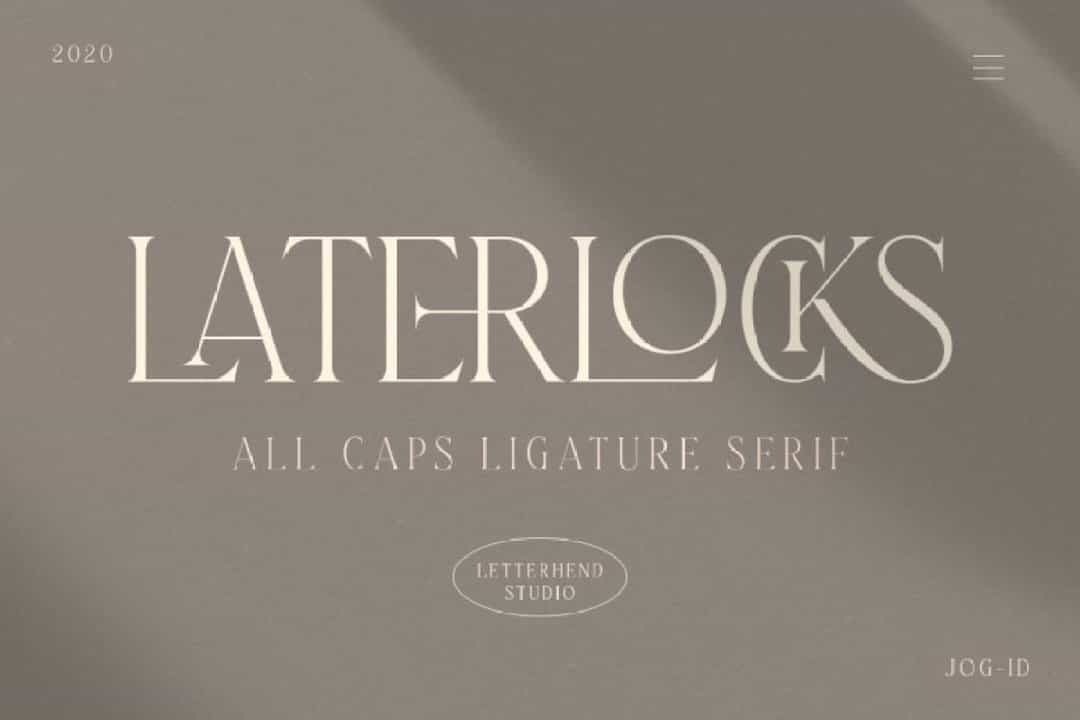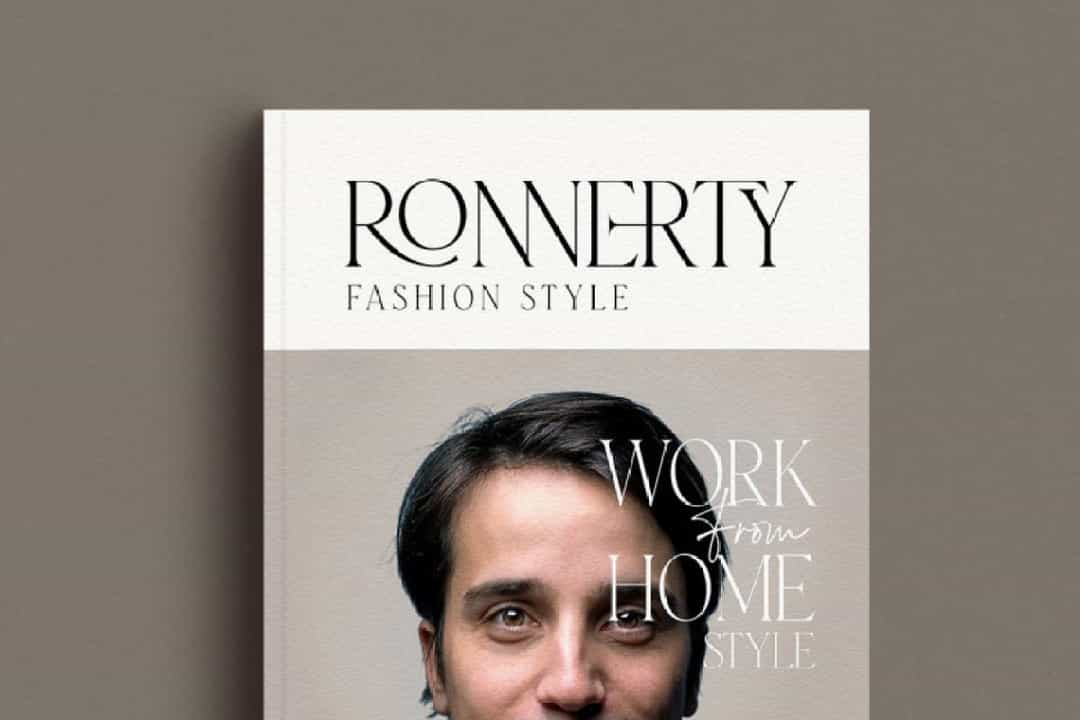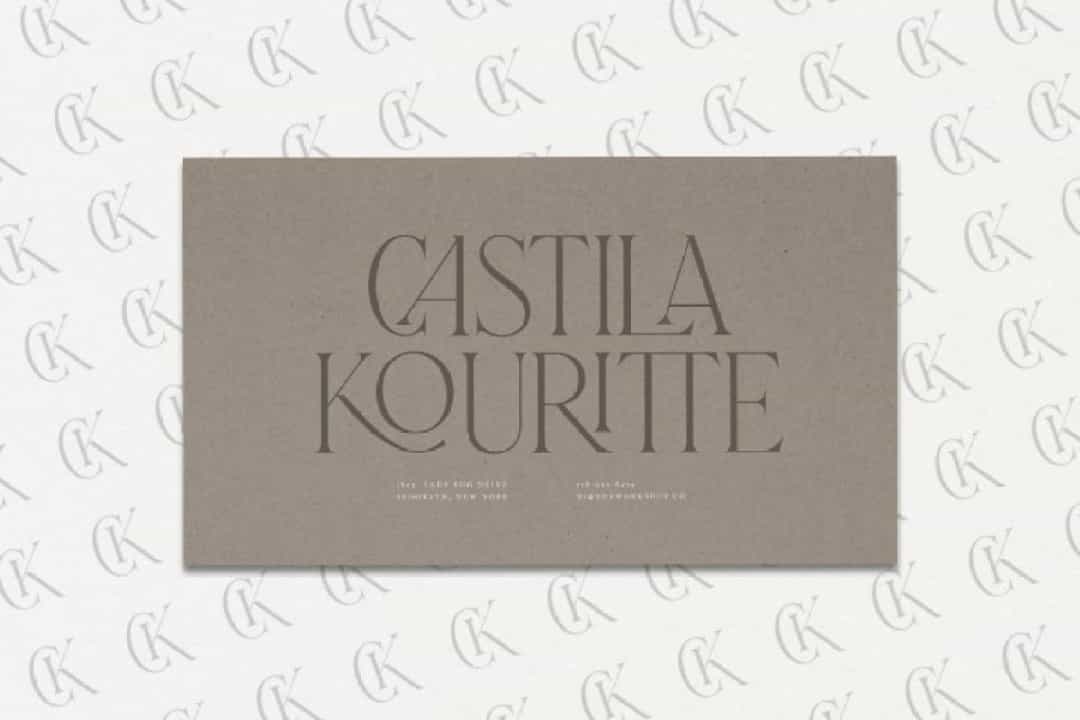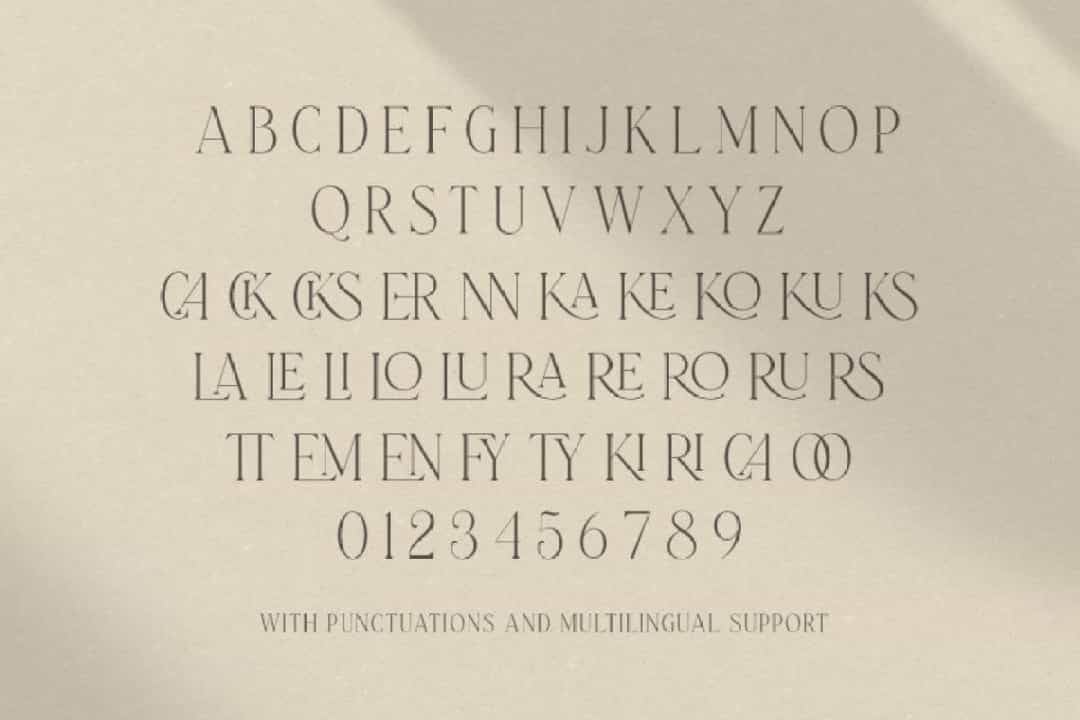
Laterlocks All Caps Ligature Serif Typeface, Here is another beautiful ligature serif font from our store. The typeface has been designed to the highest level and with a special focus on the luxurious look. This font has special ligatures that make it to stand and be recognized than the standard serif font.